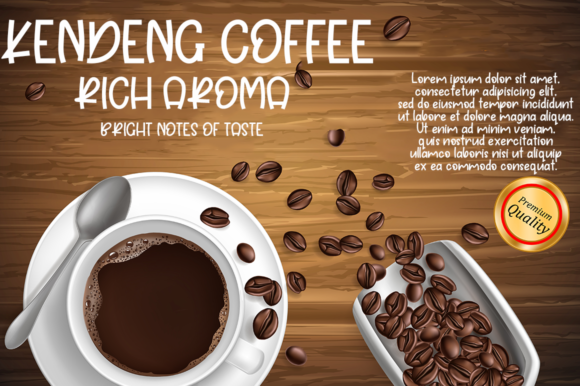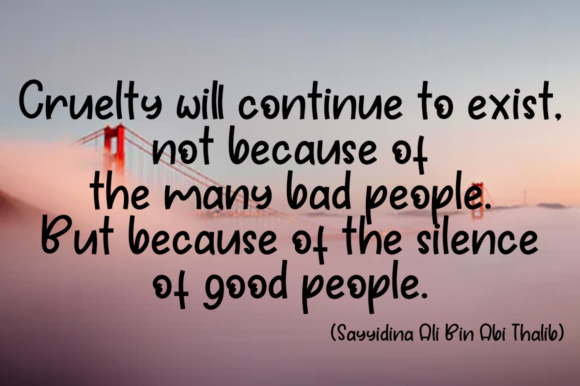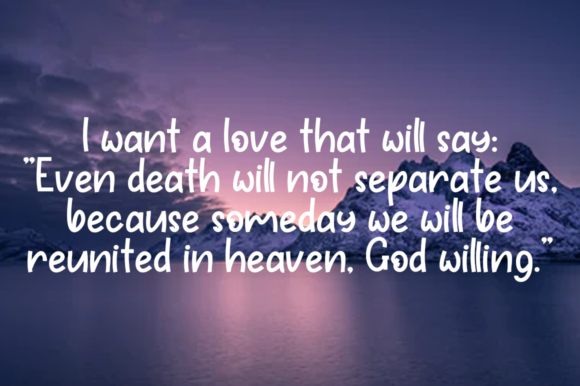
Introduction to Gentho Font
Do you remember the moment when an idea struck you, and you knew exactly what you wanted to create? Maybe it was a stunning visual campaign for a brand, a bold logo for a startup, or a captivating poster for a movie. Whatever it was, the right font can elevate your project to new heights. And, for those who are about to embark on a creative journey, we’re excited to introduce you to a game-changing design resource – the Gentho Font.
With its unique shape and modern aesthetic, Gentho Font is the perfect companion for your most ambitious projects. Whether you’re working on a free download for a personal blog or a high-quality design for a client, this font is sure to bring your vision to life. Its transparent background and stylish vibe make it an ideal choice for any creative project.
Key Features of Gentho Font
- Unique, stylish typography with a transparent background, allowing for seamless integration into any design.
- Includes a range of font sizes and styles, from 12pt to 72pt, catering to diverse design needs.
- High-resolution design (300 DPI) for crisp, clear text display, making it suitable for print and digital applications.
- Designed to be versatile, the Gentho Font can be used in a variety of contexts, from logos and branding to digital displays and publications.
Honest Review: Gentho Font
As a designer, I’m always on the lookout for high-quality design resources to elevate my creative projects. Recently, I stumbled upon the Gentho Font, and I’m excited to share my honest review.
- The font features a transparent background, allowing for seamless integration with any design element.
- The Gentho Font is highly versatile, suitable for a wide range of creative projects, from logos to web design.
- The font’s high quality is evident in its crisp lines and smooth typography.
- The Gentho Font may not be suitable for complex, multi-line text, as it can become difficult to read.
- The font’s limited character set may not be ideal for projects requiring extensive text.
Overall, I’m impressed with the Gentho Font’s potential and versatility. While it may have some limitations, it’s a valuable addition to any designer’s design resource collection. With its high quality and free download, it’s definitely worth considering for your next creative project.
How to Use Gentho Font
The Gentho Font is a high-quality design resource that can be used in a variety of creative projects. With its transparent background, it’s perfect for overlaying on images or using as a standalone element.
Tips for Getting the Most Out of Gentho Font
For the best results, use the Gentho Font in combination with high-quality images and other design elements. Experiment with different font sizes, colors, and styles to create unique and eye-catching designs.
The Gentho Font is perfect for use in creative projects such as:
- Logo creation
- Infographics
- Brochure design
When to use: Open Sans Font is perfect for business cards, resumes, and other professional documents where a clean and modern look is required. It’s also great for web design and digital products where a high-quality font is needed.
Comparison to Gentho Font: Open Sans Font is more modern and clean compared to Gentho Font, which has a more vintage look. While Gentho Font has a unique charm, Open Sans Font is more versatile and can be used in a variety of creative projects.
No, the Gentho Font does not have a transparent background. However, you can use the font in conjunction with a transparent background image or design element to achieve the desired visual effect in your creative project.